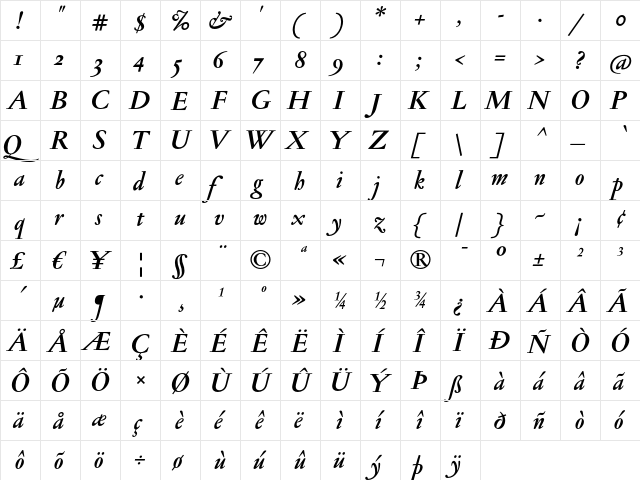
Jannon Ant OSF Bold Italic
Design Context for Jannon Ant OSF Typeface
Jannon Ant OSF is a composed and adaptable typeface that performs quietly and consistently across a wide range of design contexts. Its italic angle brings a sense of urgency and motion to the letterforms. Its bold stroke weight gives it real presence on the page.
Pro Tip: Try Jannon Ant OSF for annotation and caption copy alongside an upright companion — the contrast in angle creates a dynamic but ordered typographic system.